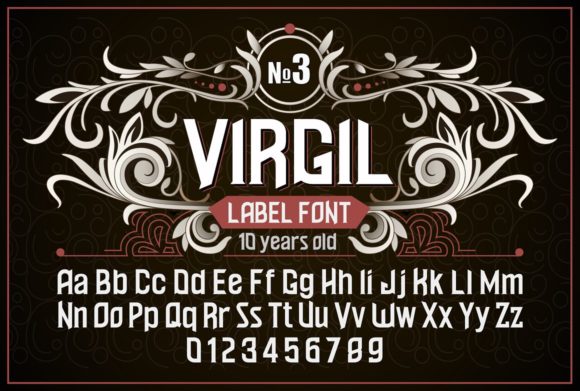
Welcome to the realm of typography enchantment, where Virgil Font reigns supreme, a display font family crafted with vintage charm and a touch of modernity. Immerse yourself in its captivating aura and discover a world of captivating designs just waiting to be born.
Virgil Font is more than just a font; it's an artistic masterpiece that blends the elegance of the past with the freshness of the present. From elegant soap labels that exude a timeless aura to eye-catching posters that demand attention, Virgil Font will transform your creative visions into tangible wonders.
Feel the nostalgia of bygone eras as you let Virgil Font grace your designs with its vintage undertones. Watch as your words take on a life of their own, whispering tales of days gone by, yet resonating with a contemporary appeal that keeps you rooted in the present.
With Virgil Font as your creative companion, design possibilities become limitless. Let your imagination soar as you craft soap labels that reflect the essence of your brand, capturing the attention of discerning customers who appreciate sophistication and timeless beauty.
Picture the allure of your soap creations heightened by the impeccable presence of Virgil Font. Its distinct character adds a touch of exclusivity to your products, setting them apart from the ordinary and attracting customers who seek unique and memorable experiences.
But Virgil Font's charm doesn't stop at soap labels. Unleash its versatility in posters, flyers, and branding materials, and witness how it transforms ordinary designs into extraordinary works of art. Let your creativity flourish as you explore the endless possibilities that await you with this remarkable font family.